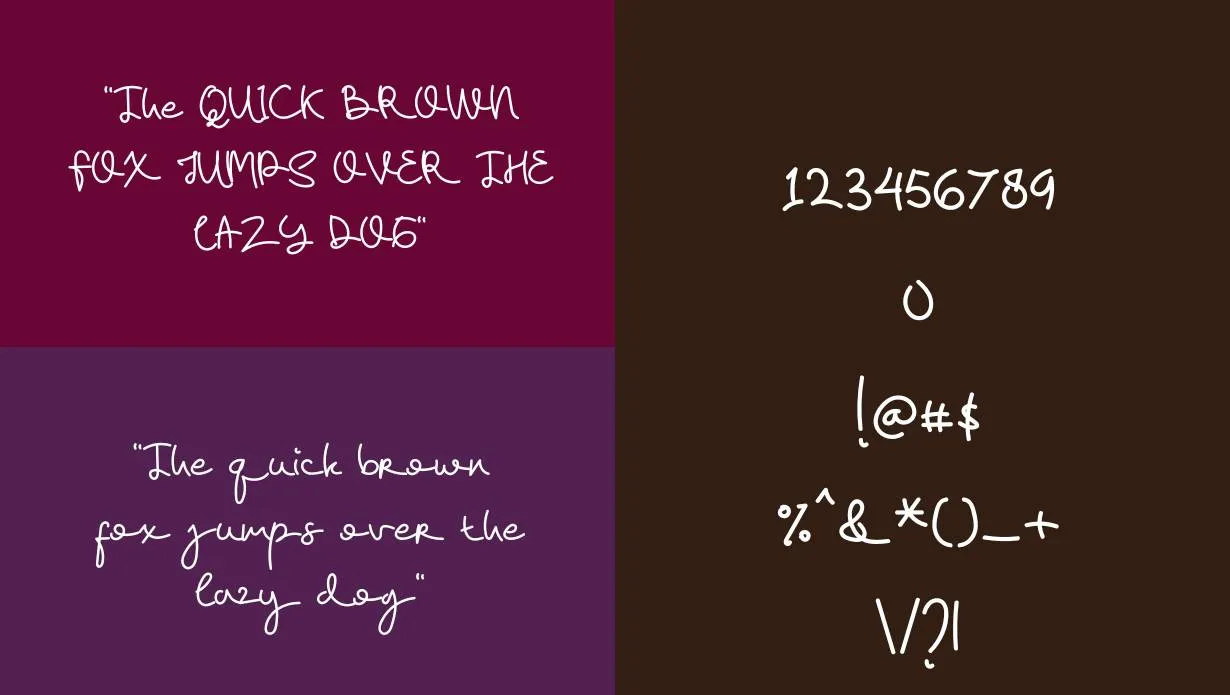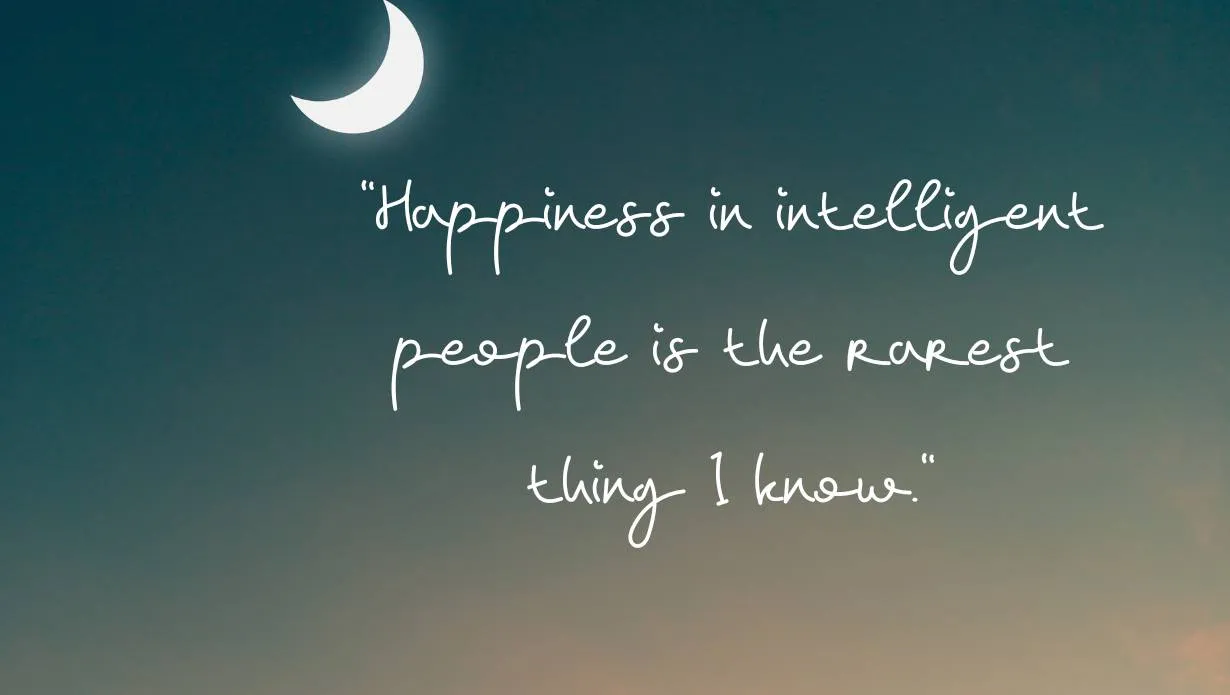
Dini Yulfiani Kartini designed this nice text design. This style will allow the user to create various designs in different languages. This font moreover comprises trendy glyphs.
The design of this typeface makes this font an incredible choice for lively designs.
Hello April Font Family